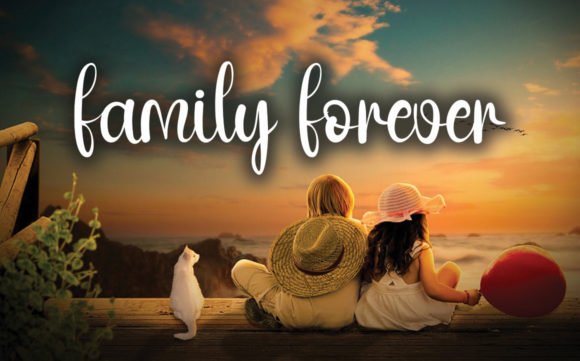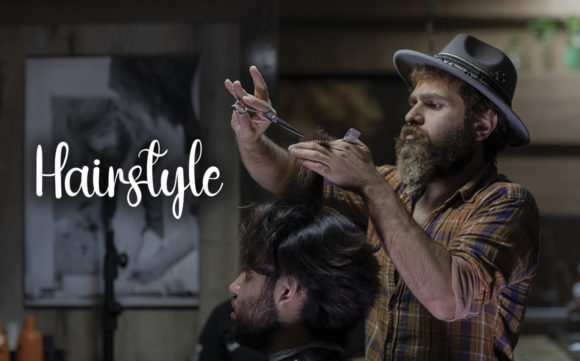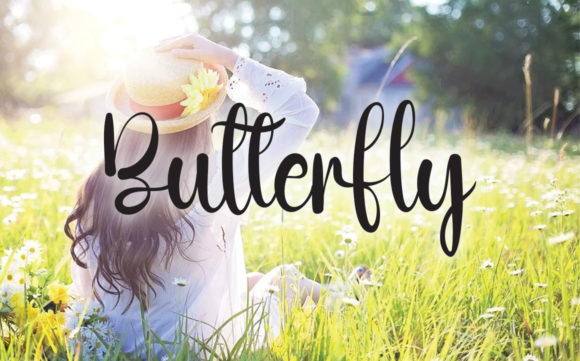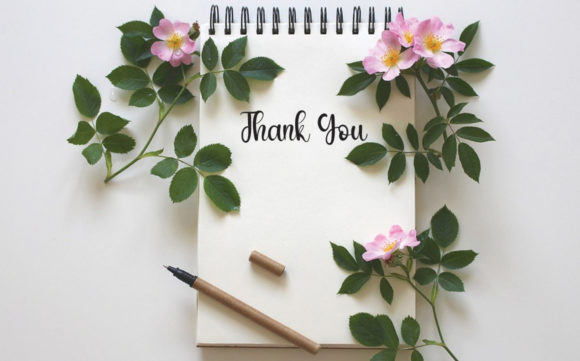
Hello Brother Font
About Hello Brother Font
Hello Brother is a beautifully flowing and modern handwritten font. Use it for wall displays, wedding invitations, social media posts, logos, advertisements, product packaging, product designs, labels, photography, watermarks, invitations, stationery, and any project that requires impressive typography.